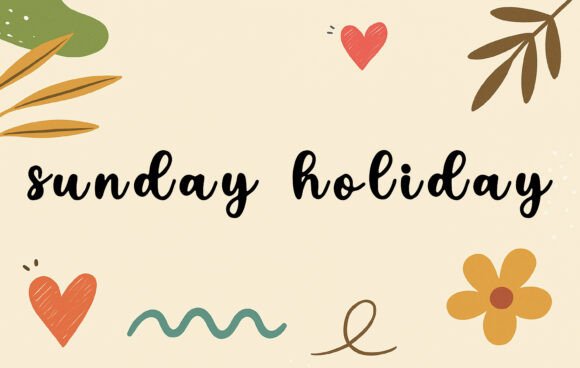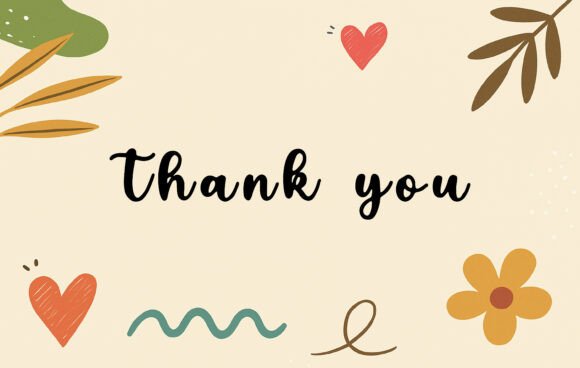
Discover the Versatility of Angela Font: Elevate Your Designs to New Heights
In the world of typography, fonts play a crucial role in bringing creative ideas to life. Among the numerous fonts available, Angela Font stands out as a true favorite among designers and crafters. This versatile font is designed to take your creative projects to the highest level, offering a perfect blend of legibility and aesthetic appeal.
What Makes Angela Font Special?
Angela Font is crafted to be highly legible, making it an excellent choice for both title and body text. Its clean and elegant design ensures that your message is conveyed with clarity and style, regardless of the platform or medium. Whether you’re working on magazine headlines, t-shirts, social media graphics, branding materials, wedding invitations, or cards, this font is perfect for a wide range of design projects.
Key Features of Angela Font
- Legibility: Angela Font boasts a clear and readable design, ensuring that your text is easily comprehensible, even at smaller sizes.
- Versatility: Its elegant and adaptable nature makes it suitable for various design applications, from digital media to print materials.
- Aesthetic Appeal: With its sophisticated look, Angela Font adds a touch of class and professionalism to any project.
- Creative Freedom: The font’s versatility gives you the creative freedom to experiment with different designs and styles, pushing your projects to new heights.
Applications of Angela Font
The possibilities are endless with Angela Font. Here are some of the many ways you can utilize this incredible font:
- Magazine Headlines: Create eye-catching titles that grab the reader’s attention and set the tone for your content.
- T-Shirts and Apparel: Design stylish and legible text for t-shirts, hoodies, and other apparel that makes a statement.
- Social Media Graphics: Enhance your social media presence with professional-looking graphics that incorporate Angela Font.
- Branding and Logo Design: Establish a strong brand identity with a font that communicates your message clearly and effectively.
- Wedding Invitations and Cards: Add a touch of elegance and sophistication to your wedding invitations, greeting cards, and other stationery.
Tips for Using Angela Font Effectively
To maximize the potential of Angela Font, consider the following tips:
- Experiment with Sizes: Angela Font looks great at various sizes, so don’t be afraid to experiment to find the perfect fit for your project.
- Play with Colors: The font’s versatility extends to color schemes as well. Try different colors to see what works best for your design.
- Mix and Match: Combine Angela Font with other fonts to create a unique and visually appealing design.
- Pay Attention to Spacing: Ensure that your text has sufficient spacing to maintain readability and aesthetic appeal.
Angela Font is a powerful tool in the world of design, offering a perfect blend of legibility, versatility, and aesthetic appeal. Whether you’re a professional designer or a crafter, this font has the potential to elevate your creative projects to new heights. With its wide range of applications and ease of use, Angela Font is sure to become a favorite in your design arsenal. So, why wait? Explore the possibilities of Angela Font today and take your designs to the next level!